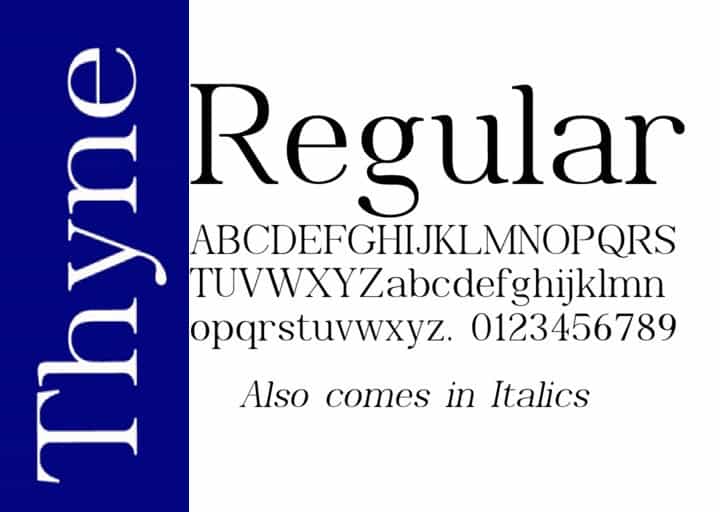
Thyne Serif Font
Thyne Serif Font is a display serif font created by Typotheticals  with luxury, elegant, modern, unique and classy-look. A sophisticated modern serif with loads of character. This font crafted specials for luxury-themed projects, ready to use on Magazine, Social Media, Branding, Logo, and Many more that needs Luxury touchs.